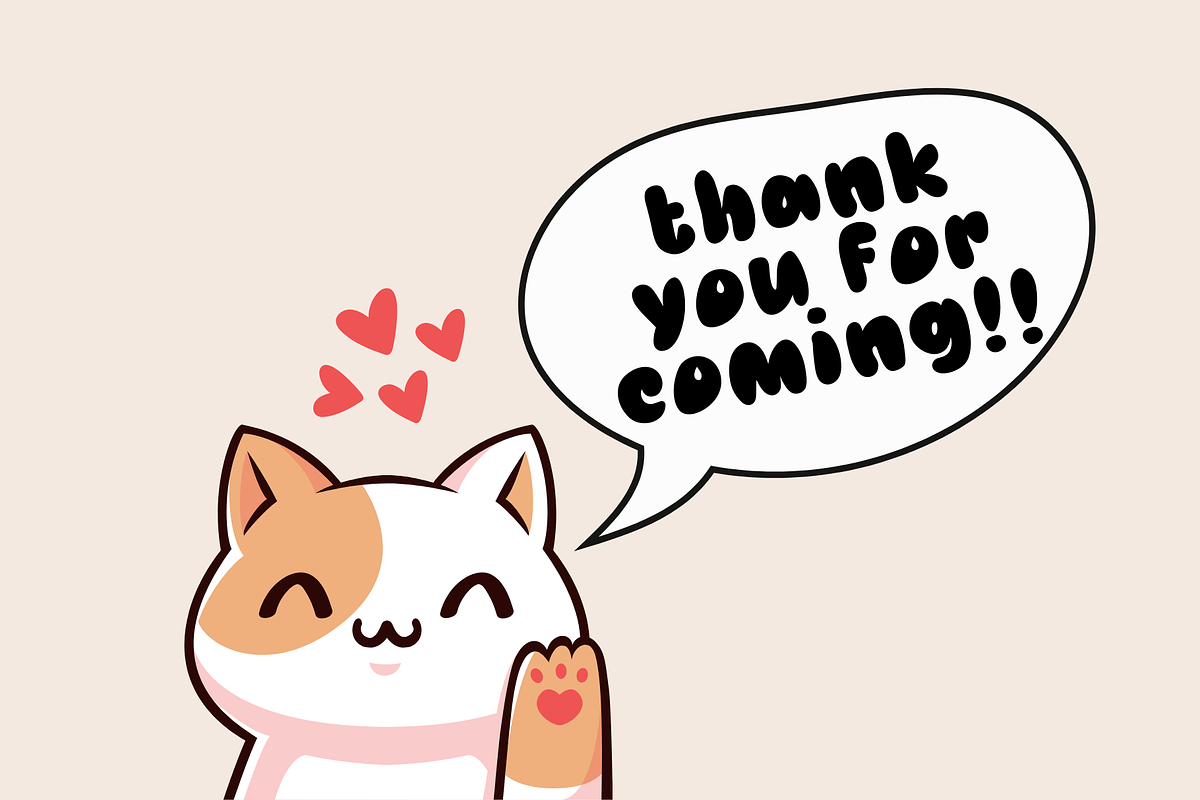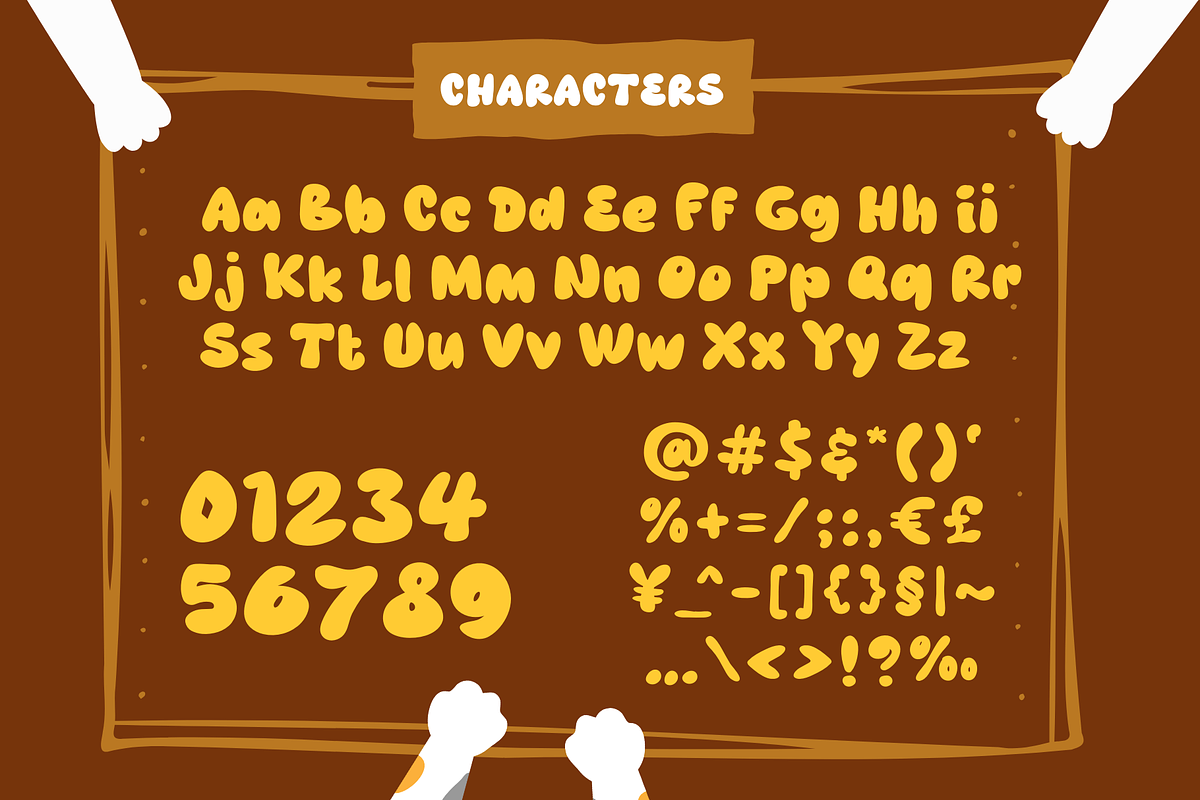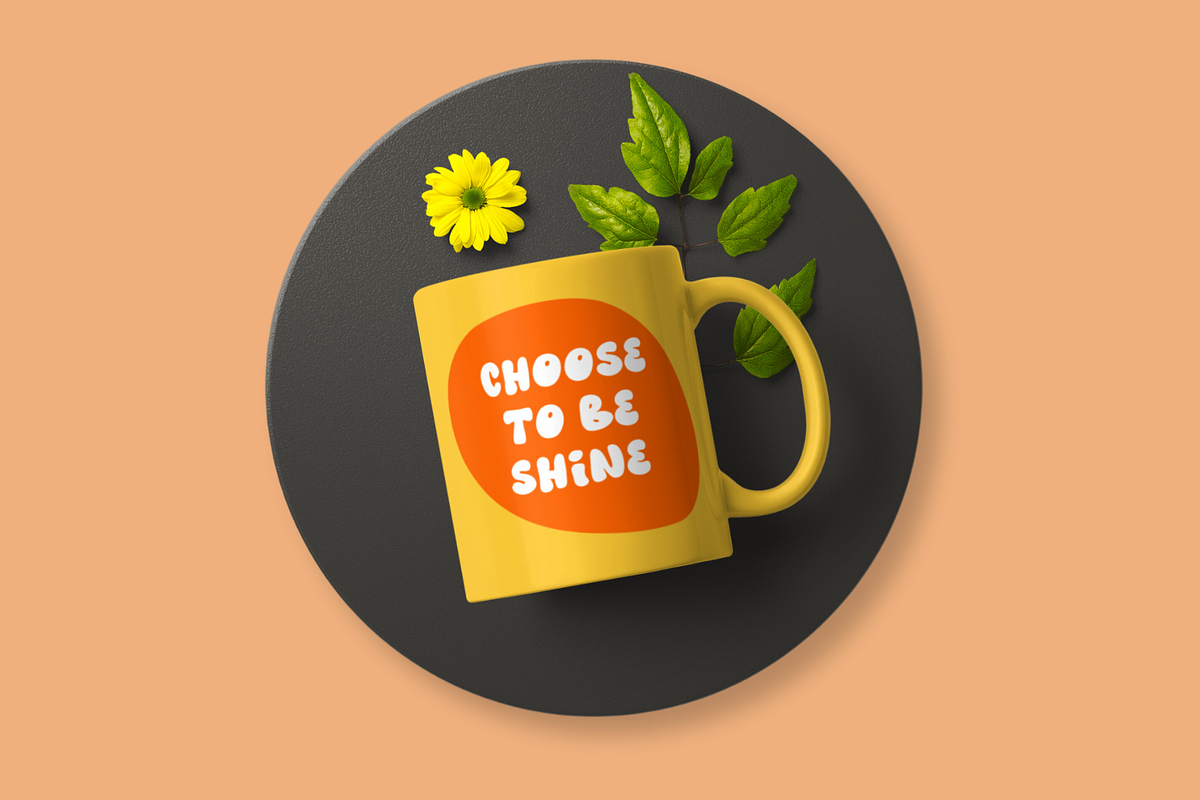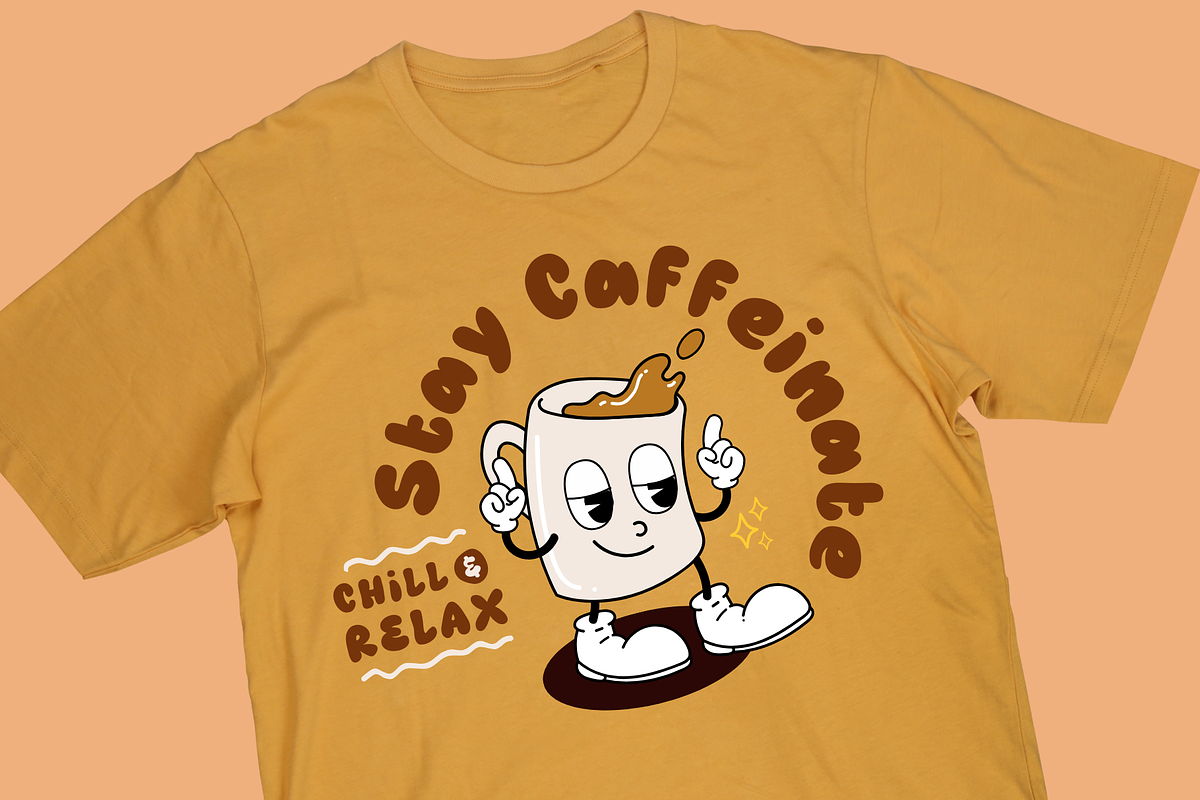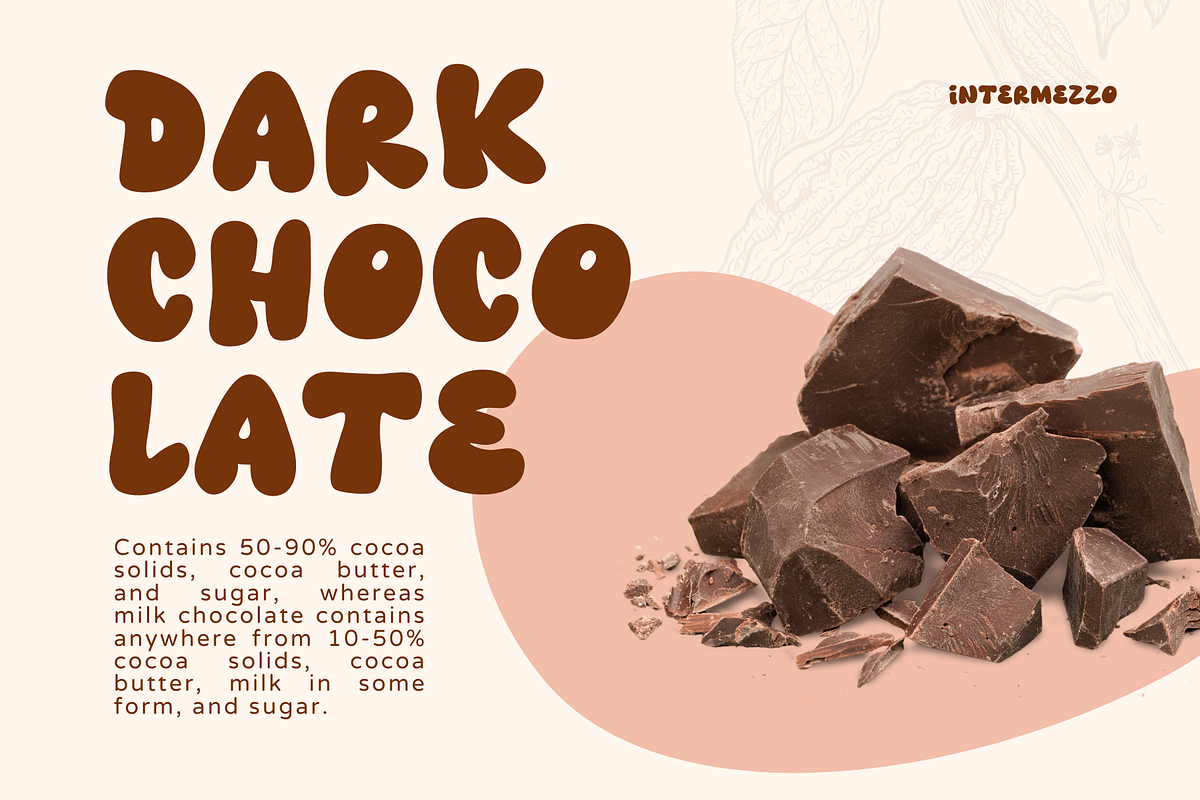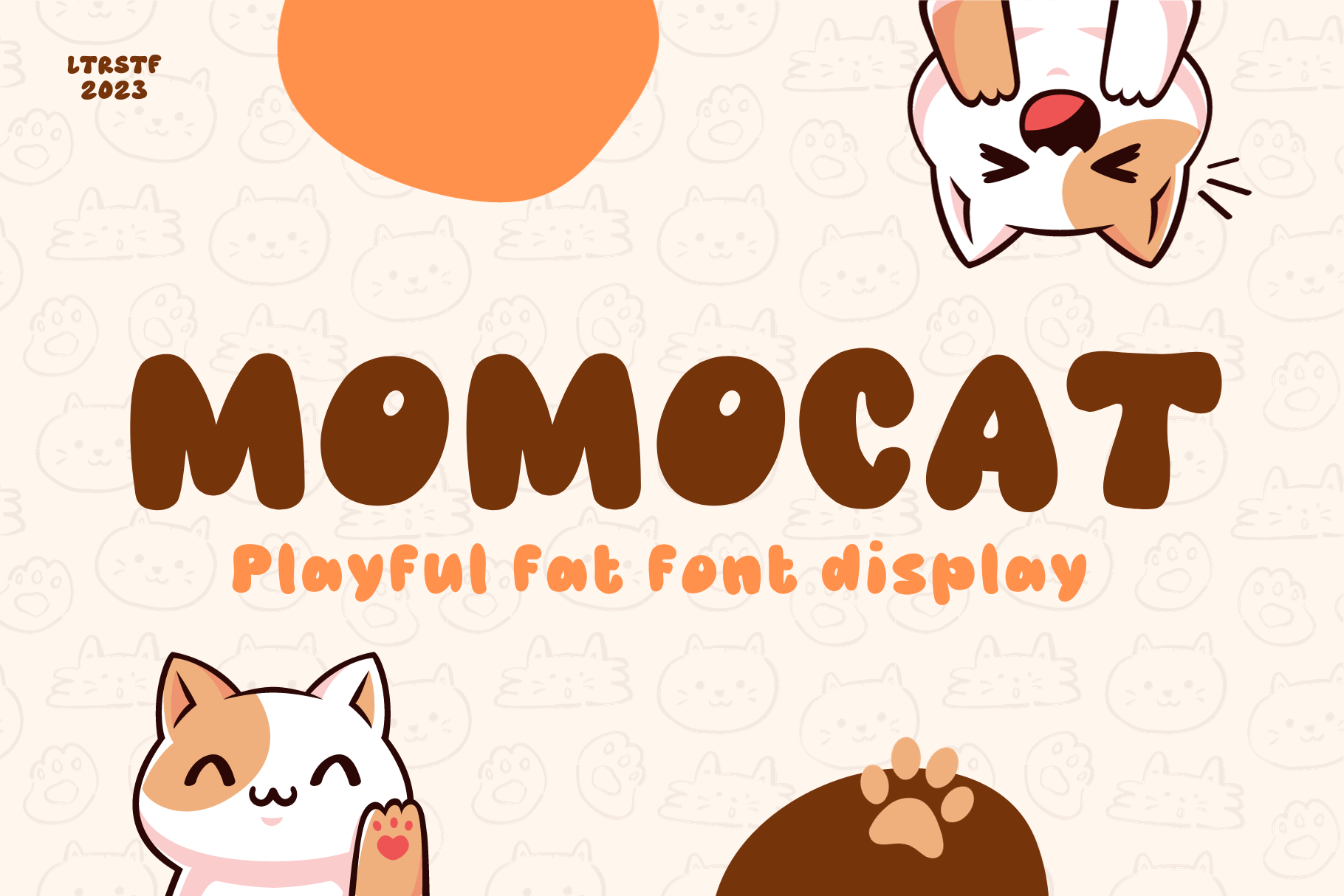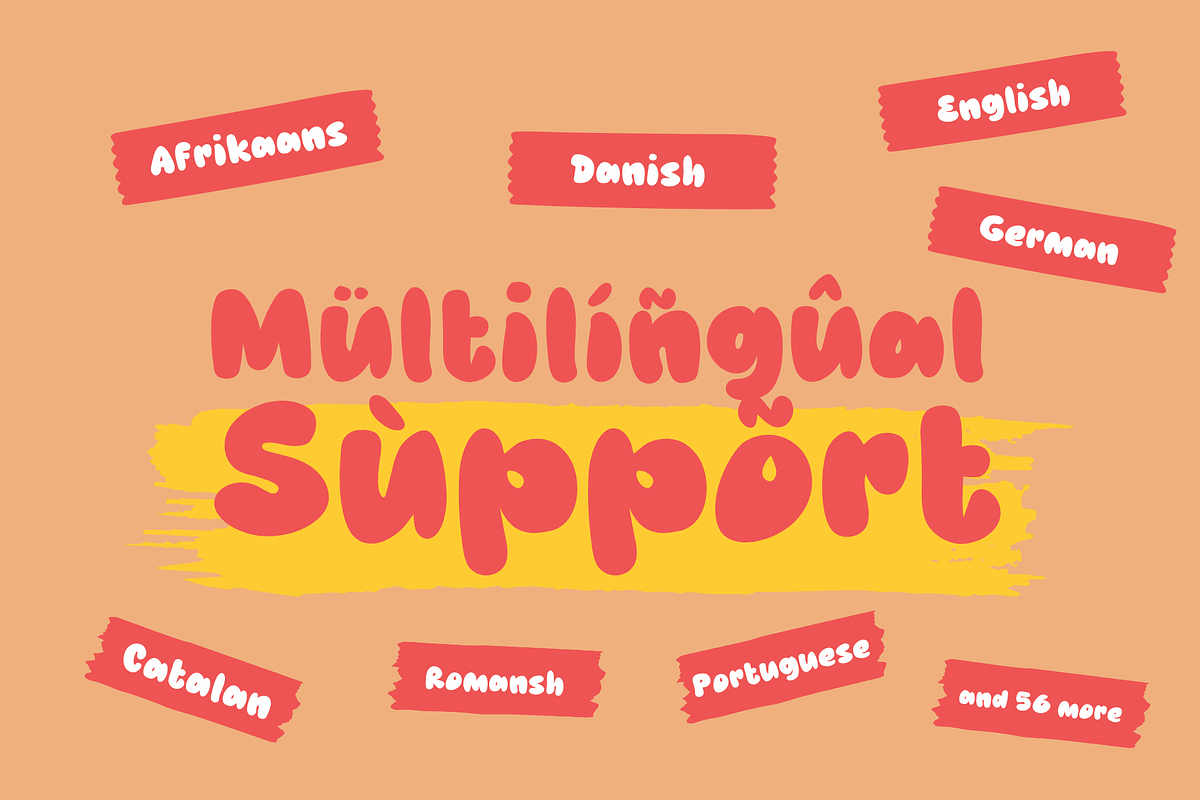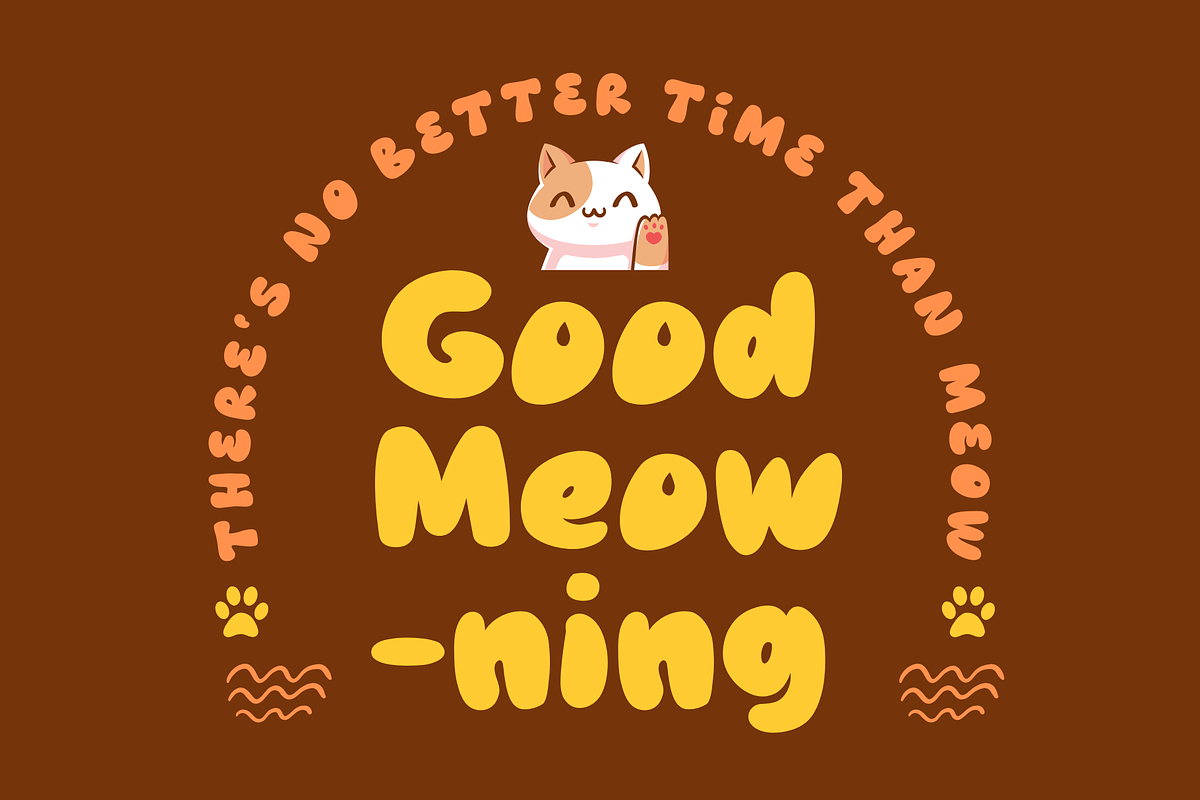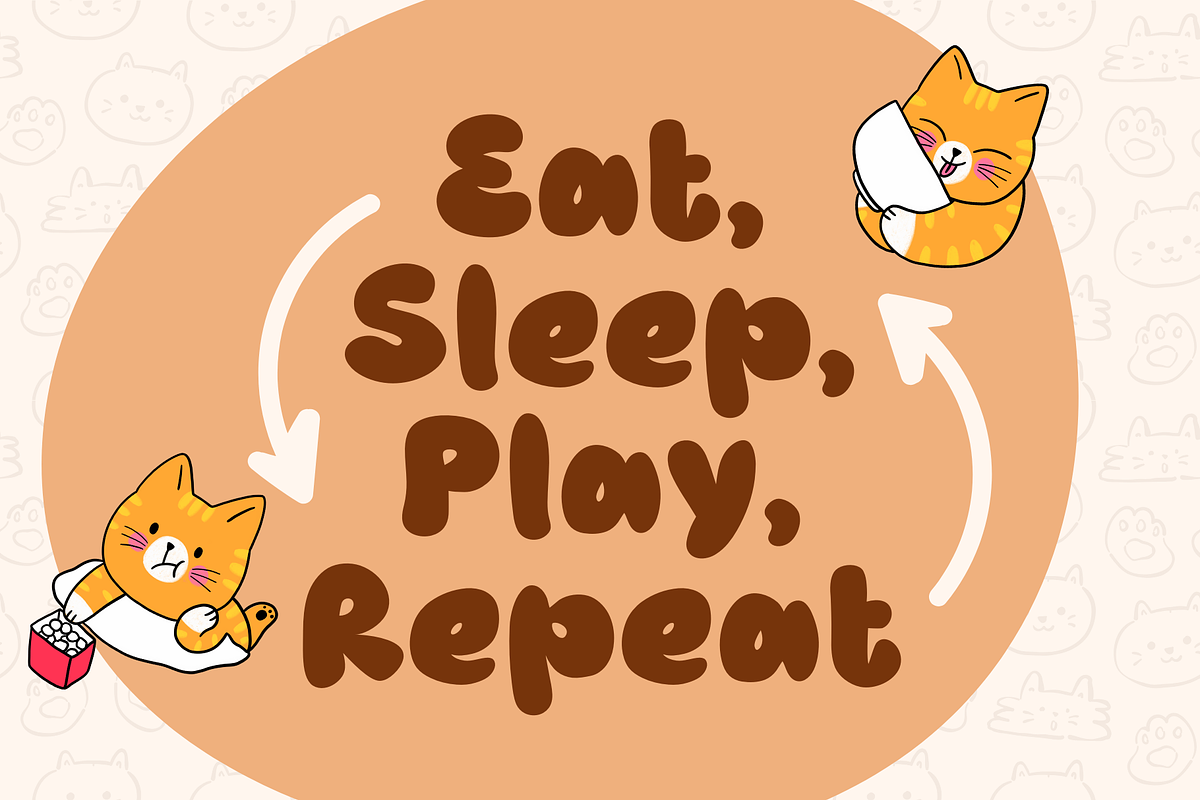
Momocat - Cute Font
Introducing "Momocat Playful Font" – a delightful burst of creativity in every character! This bubbly, fun-loving typeface is your ticket to injecting a dose of playfulness into your designs. Momocat's unique bubble style and fat strokes make it the perfect choice for display, titles, and headlines that demand attention.
- Numeral and punctuation
This delightful typeface is designed with a generous dose of fat strokes, ensuring your text commands attention and exudes a lighthearted energy. Perfect for display, titles, and headlines, Momocat adds a distinctive flair to any project, making it an ideal choice for those who want to infuse their designs with personality.